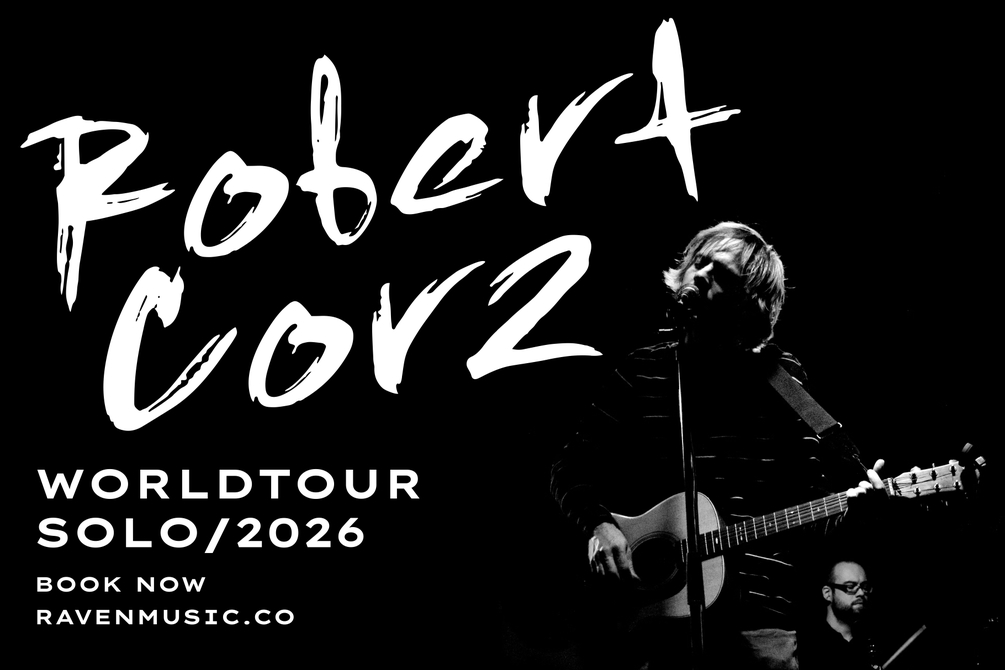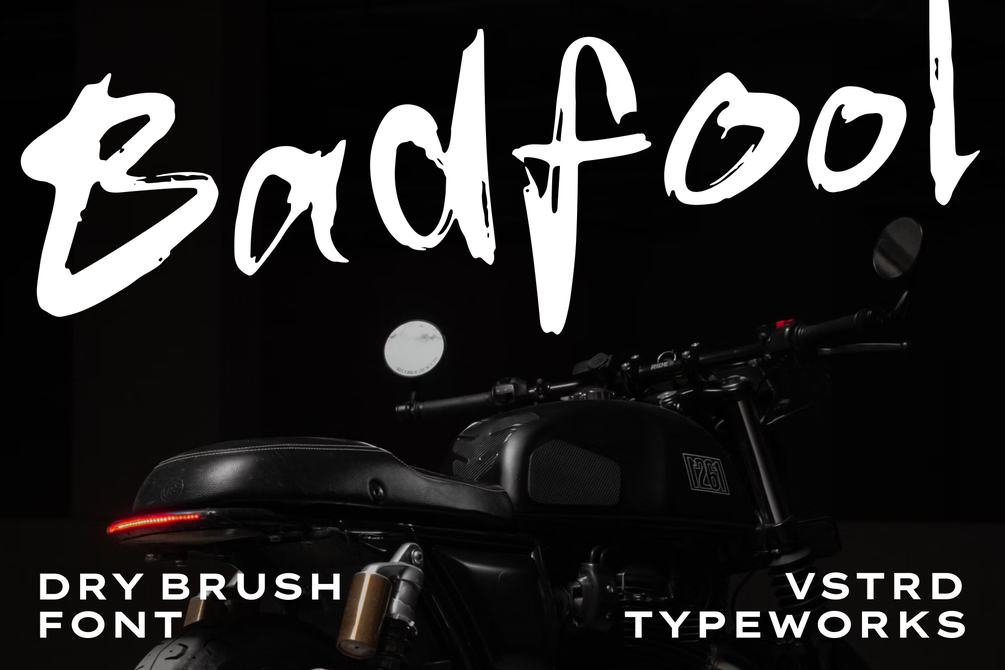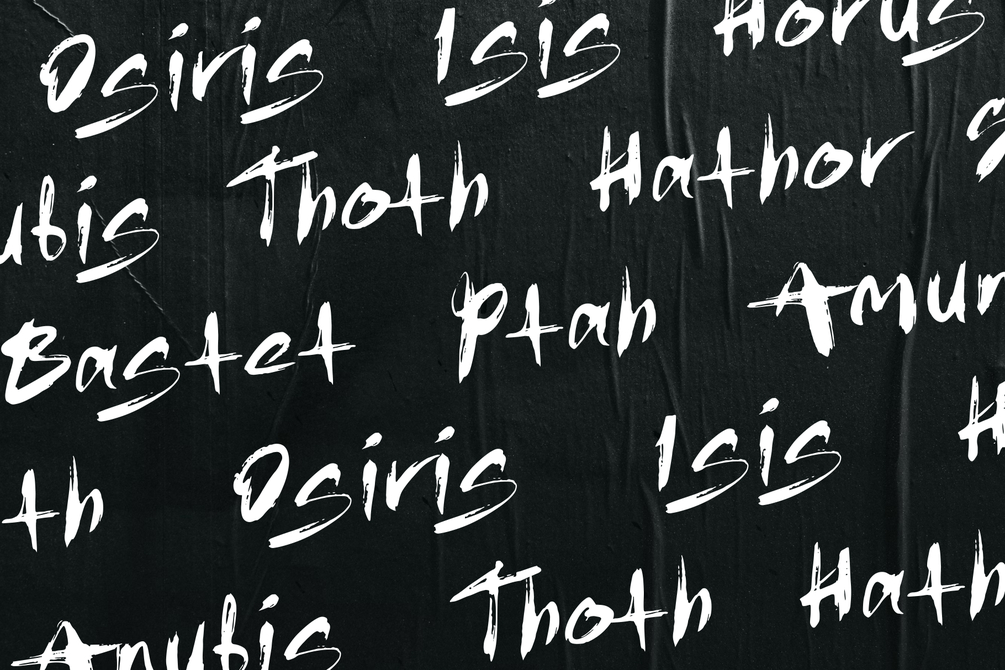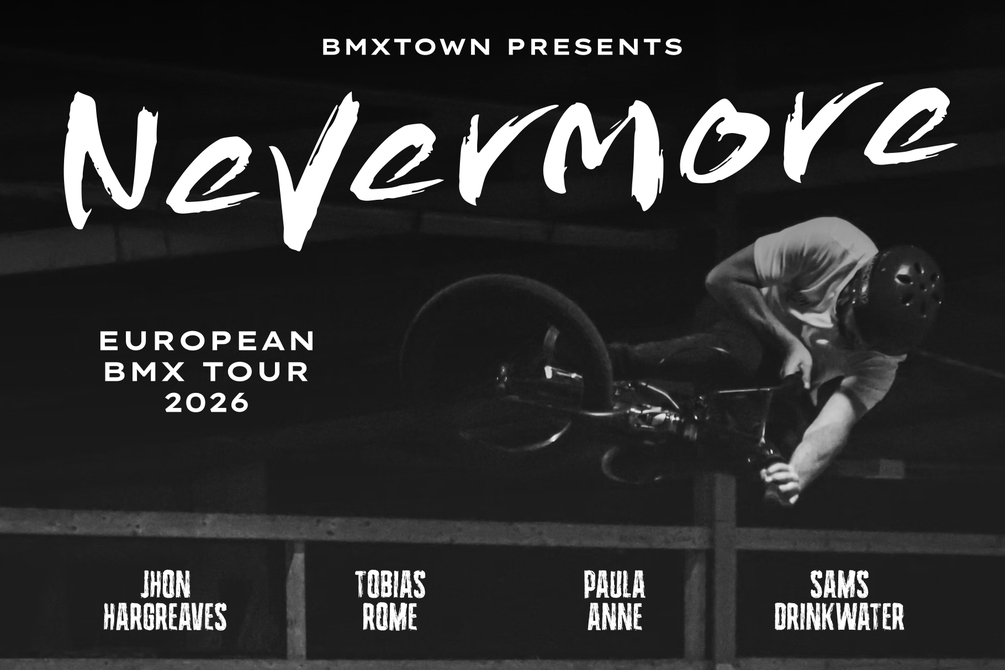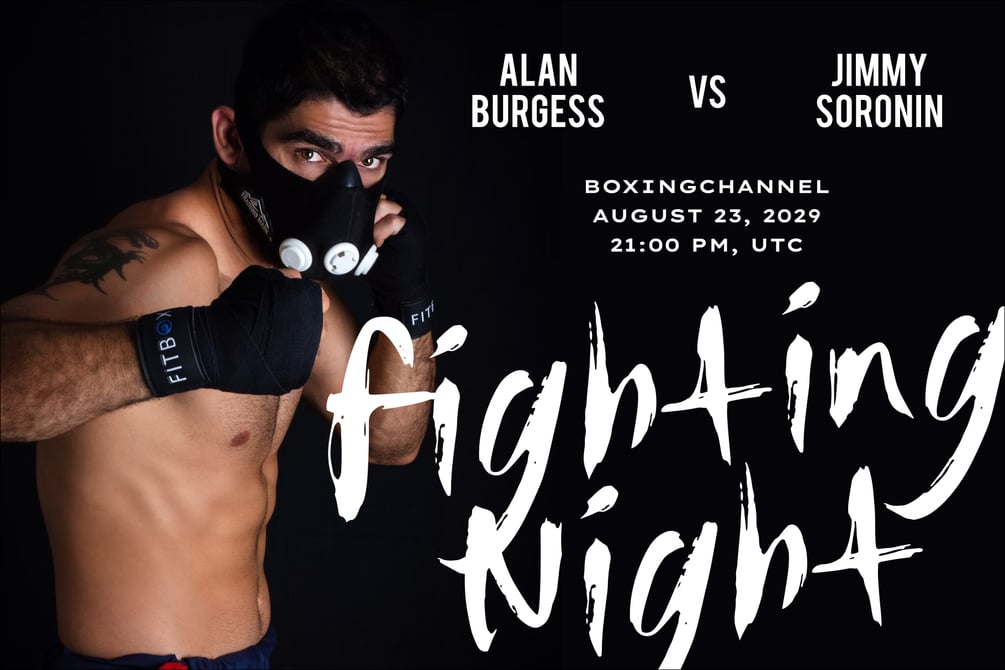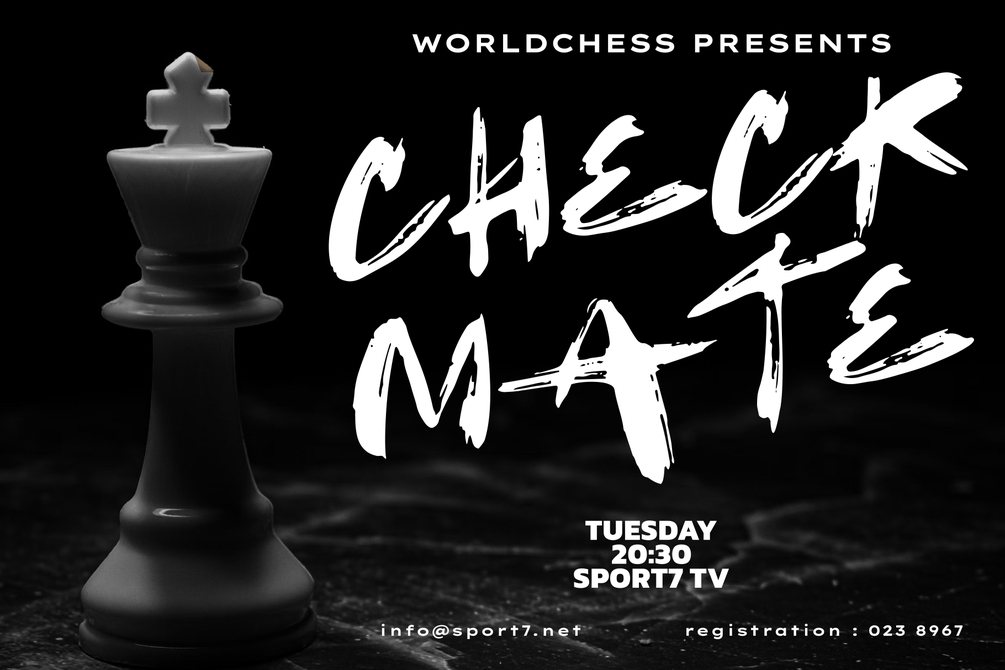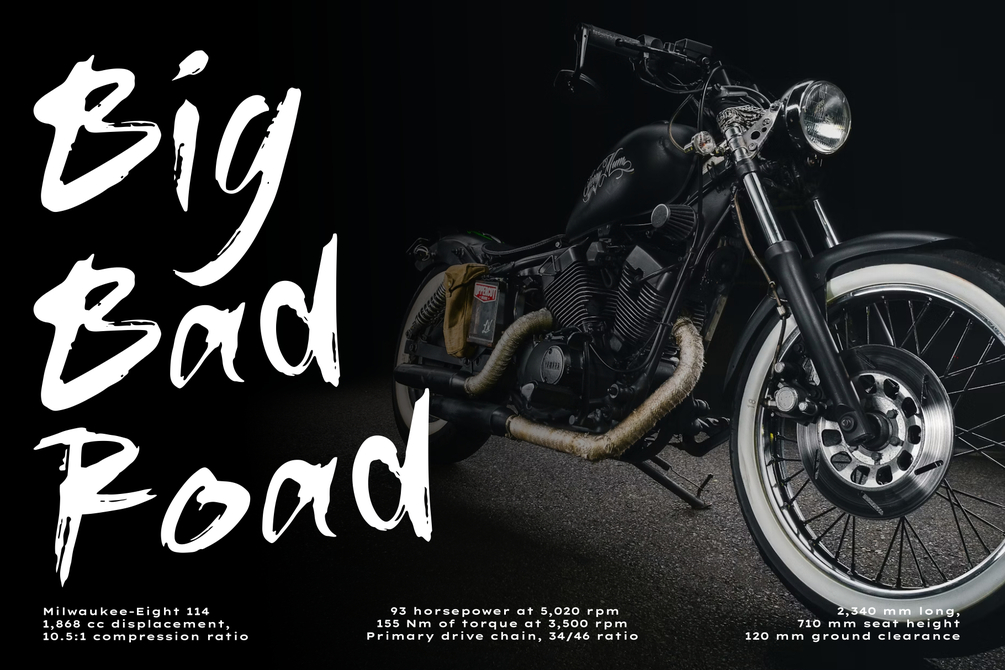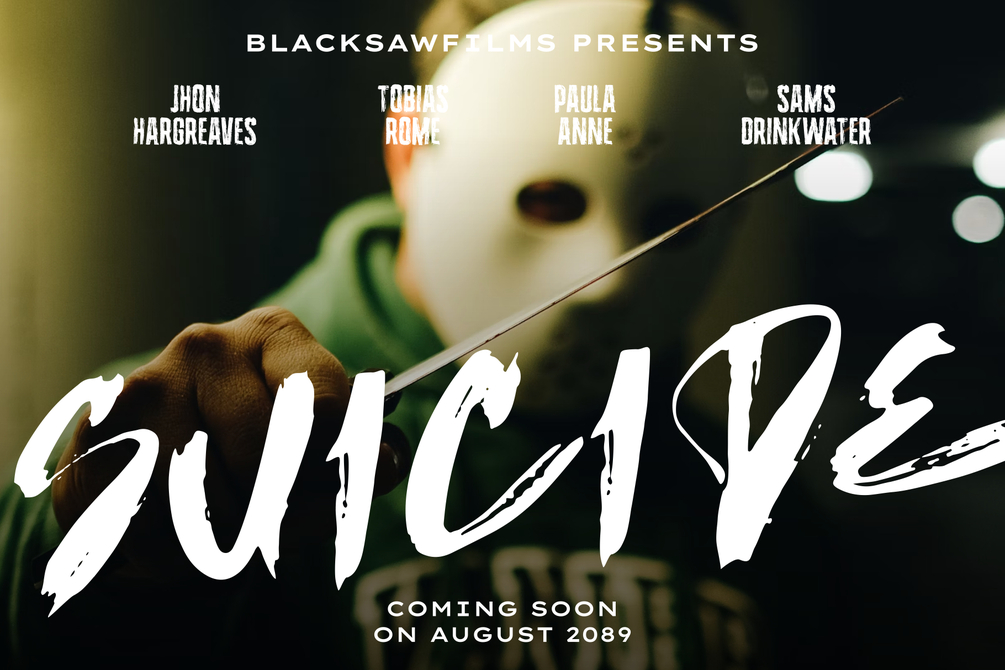
Badfool - Dry Brush Scribble Font
Introducing Badfool - Dry Brush Scribble Font
Badfool is a dry handwritten scribble brush font. This texture is very detailed. Very suitable for logos, product branding, printable templates, posters, flyers, shirts, or for text overlay to any background image. Badfool font comes in Uppercase, Lowercase, with punctuation and numerals.
Features :
Uppercase
- Lowercase
- Numbers & Punctuation
- Multilingual Support